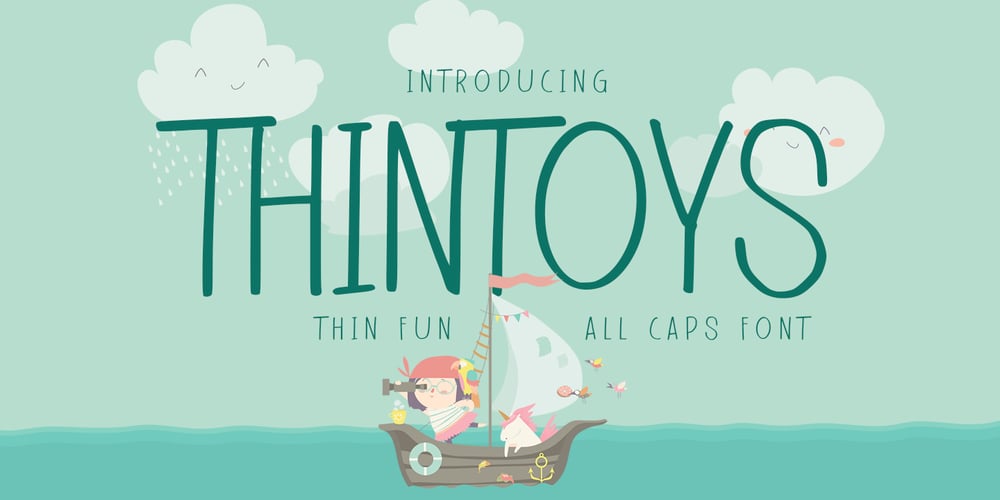
Thintoys
Thintoys font
Thintoys Font Family was designed by Abdul Malik Wisnu, Anang Fibriyanto and published by Gassstype. Thintoys contains 1 styles and family package options. Hello Everyone, Introduce our new collection Thintoys – Fun All Caps Font and display for posters,t-shirt, packaging, branding, logotype and more. Thintoys font with strong and challenging nuances. very suitable for the title, branding projects,typography,Logo, Poster, magazines, brochures, packaging,Websites and much more for your design needs, making your designs more modern and professional.